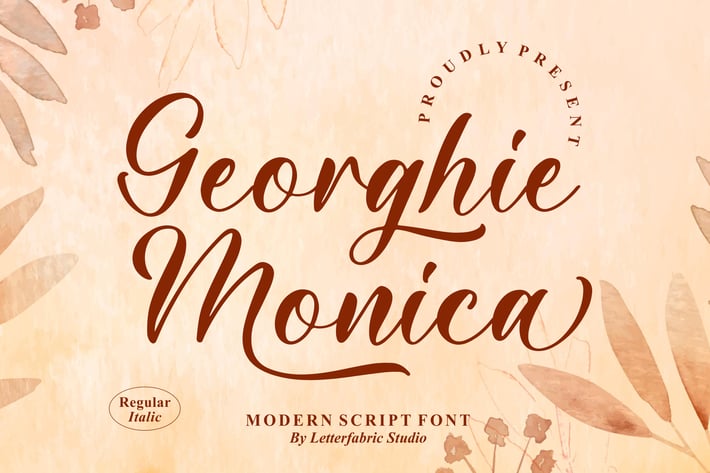
Georghie Monica Modern Script Font
Georghie Monica is a modern script font with a soft, romantic flow and a naturally graceful rhythm. Its smooth curves and balanced strokes give off a warm, elegant feel — perfect for designs that want to feel personal, charming, and effortlessly beautiful.
Modern script style with smooth, flowing strokes
Elegant and feminine character
Includes Regular & Italic styles
Natural handwritten feel with clean readability
Subtle swashes for added charm
Wedding & invitation designs
Personal branding & signature logos
Beauty, fashion & lifestyle visuals
Quotes, cards & stationery
Social media graphics with a soft aesthetic
Gentle, graceful, and timeless — Georghie Monica feels like a handwritten note filled with warmth.*